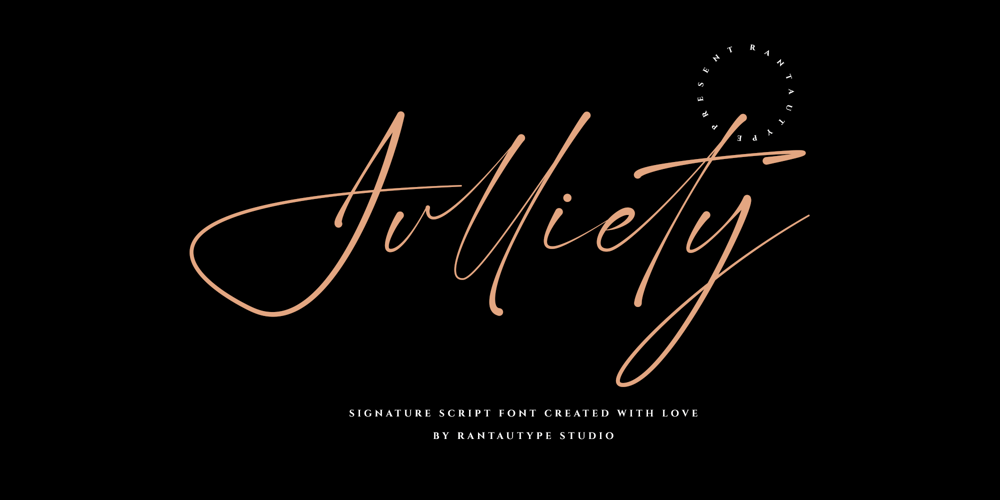
Julliety Font Family was designed by Yudi Pratama Chandra and published by RantauType. Julliety contains 1 styles and family package options. Julliety is signature font embraces elegance and grace. Jullieta come with stylish curve and touch of handsign create sense of natural detail. Julliety come with alternate, ligature, multilingual support and for swashes you can see in opentype feature.Julliety is a perfectly choice for any creative endeavor, chic, lifestyle design such as logos, advertisements, watermark on photography, stationery, branding project, display and magazine, invitation, corporate brand, product design, label, business project and other project with elegant taste.What you have: Standart Gylphs Numberial and Functional Ligature and alternate Works on PC & Mac Simple installations Accessible in Adobe Illustrator, Adobe Photoshop, Adobe InDesign, even work on Microsoft Word. Fonts include multilingual support for: Afrikaans, Albanian, Asu, Basque, Bemba, Bena, Breton, Chiga, Cornish, Dutch, English, Estonian, Filipino, Finnish, Friulian, Galician, Gusii, Indonesian, Irish, Italian, Kabuverdianu, Kalenjin, Kinyarwanda, Luo, Luxembourgish, Luyia, Machame, Makhuwa-Meetto, Makonde, Malagasy, Manx, Morisyen, North, Ndebele, Nyankole, Oromo, Portuguese, Quechua, Romansh, Rombo, Rundi, Rwa, Samburu, Sango, Sangu, Scottish, Gaelic, Sena, Shambala, Shona, Soga, Somali, Spanish, Swahili, Swedish, Swiss, German.Thank you for your purchase!Hope you enjoy with our font!